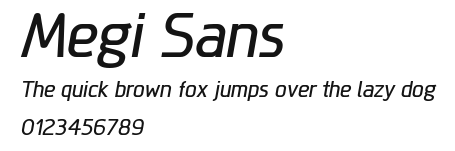
• Font Name: Megi Sans
• Full Font Name: Megi Sans Italic
• Manufacturer: StudioTypo
About Megi Sans.otf
Megi Sans.otf is a modern, elegant sans-serif font designed for ultimate readability and visual harmony. Perfect for branding, headlines, web design, and print materials.